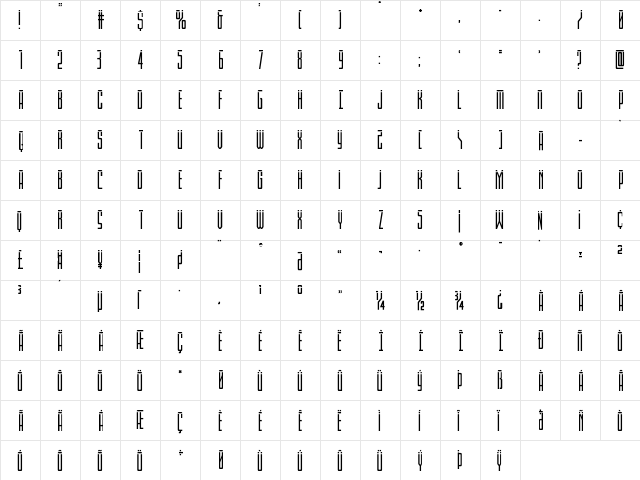
Blue Cobra Laser Regular
Design Context for Blue Cobra Laser Typeface
Blue Cobra Laser is a composed and adaptable typeface that performs quietly and consistently across a wide range of design contexts.